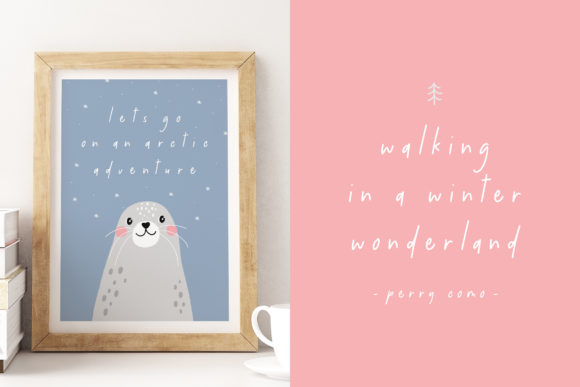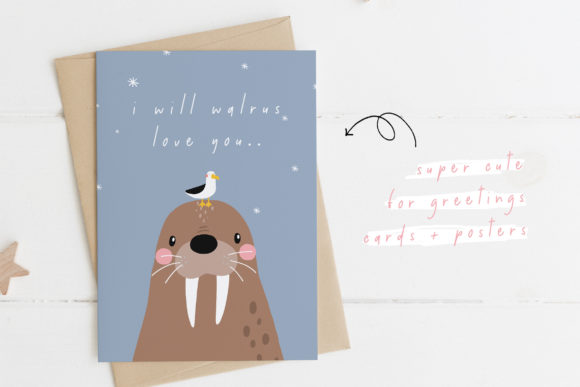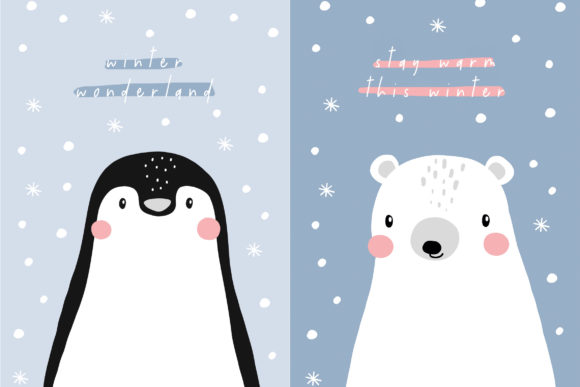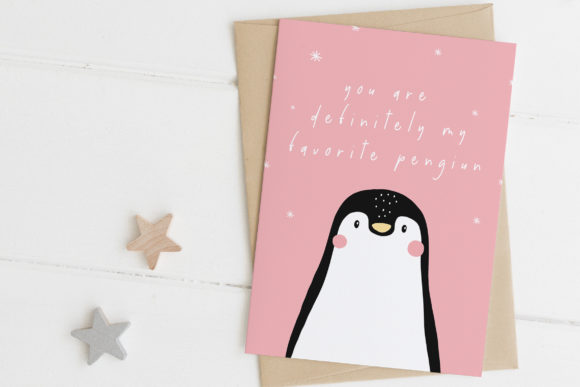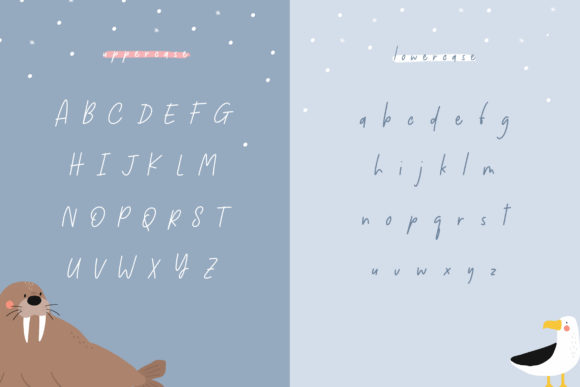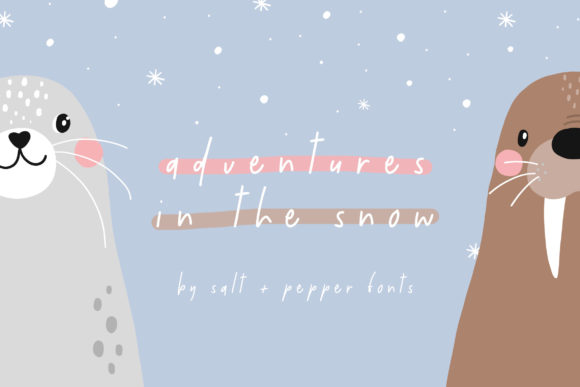
Adventures in the Snow Font: A Charming Addition to Your Design Toolkit
Are you a designer or crafter looking for a font that can add a personal touch to your work? Look no further than the Adventures in the Snow Font. This adorable lettered display font is perfect for creating chalkboard quotes, teaching materials, and other designs that require a warm and authentic feel.
What is Adventures in the Snow Font?
Adventures in the Snow Font is a cute and simple font that is designed to mimic the look of handwriting on a chalkboard. Its authentic look and feel make it an excellent choice for designers and crafters who want to add a personal touch to their work. Whether you’re creating a chalkboard sign, a teaching poster, or a social media graphic, this font is sure to impress.
Key Features of Adventures in the Snow Font
- Cute and Simple Design: The Adventures in the Snow Font features a charming and straightforward design that is perfect for creating eye-catching headings and titles.
- Authentic Chalkboard Look: The font’s authentic look and feel make it an excellent choice for designers and crafters who want to create designs that resemble handwriting on a chalkboard.
- Lettered Display Font: This font is specifically designed as a lettered display font, making it perfect for creating headings, titles, and other eye-catching text elements.
- Easy to Read: The Adventures in the Snow Font is easy to read, even at smaller sizes, making it a versatile choice for a wide range of design applications.
Uses for Adventures in the Snow Font
The Adventures in the Snow Font is a versatile font that can be used in a wide range of design applications. Here are a few ideas to get you started:
- Chalkboard Quotes: Use the Adventures in the Snow Font to create beautiful chalkboard quotes that are perfect for social media, blogs, or even physical chalkboards.
- Teaching Materials: This font is an excellent choice for creating teaching materials, such as posters, worksheets, and presentations.
- Signs and Posters: The Adventures in the Snow Font is perfect for creating eye-catching signs and posters for events, promotions, or informational purposes.
- Social Media Graphics: Use this font to create engaging social media graphics that are sure to grab the attention of your followers.
Tips for Using Adventures in the Snow Font
The Adventures in the Snow Font is a charming and versatile font that is perfect for designers and crafters who want to add a personal touch to their work. Its authentic look and feel make it an excellent choice for creating chalkboard quotes, teaching materials, and other designs that require a warm and authentic feel. With its cute and simple design, easy readability, and versatility, this font is sure to become a staple in your design toolkit.